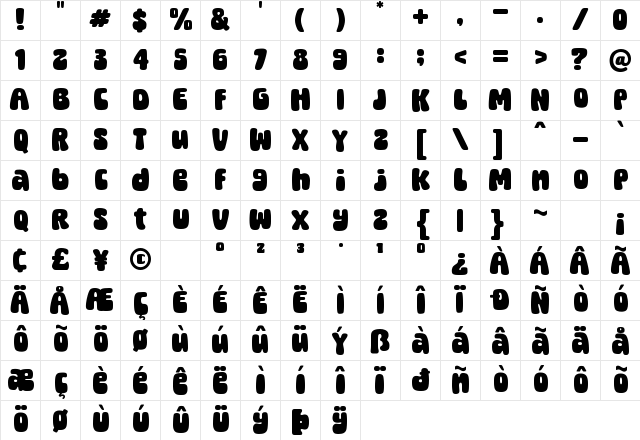
Stay Peach Regular
Foundry: HansCo Studio
Designer: Burhan Afif
Complete Stay Peach Regular glyph index. Displaying only characters natively supported by Stay Peach Regular font.
Design Context for Stay Peach
Stay Peach is a composed and adaptable typeface that performs quietly and consistently across a wide range of design contexts.